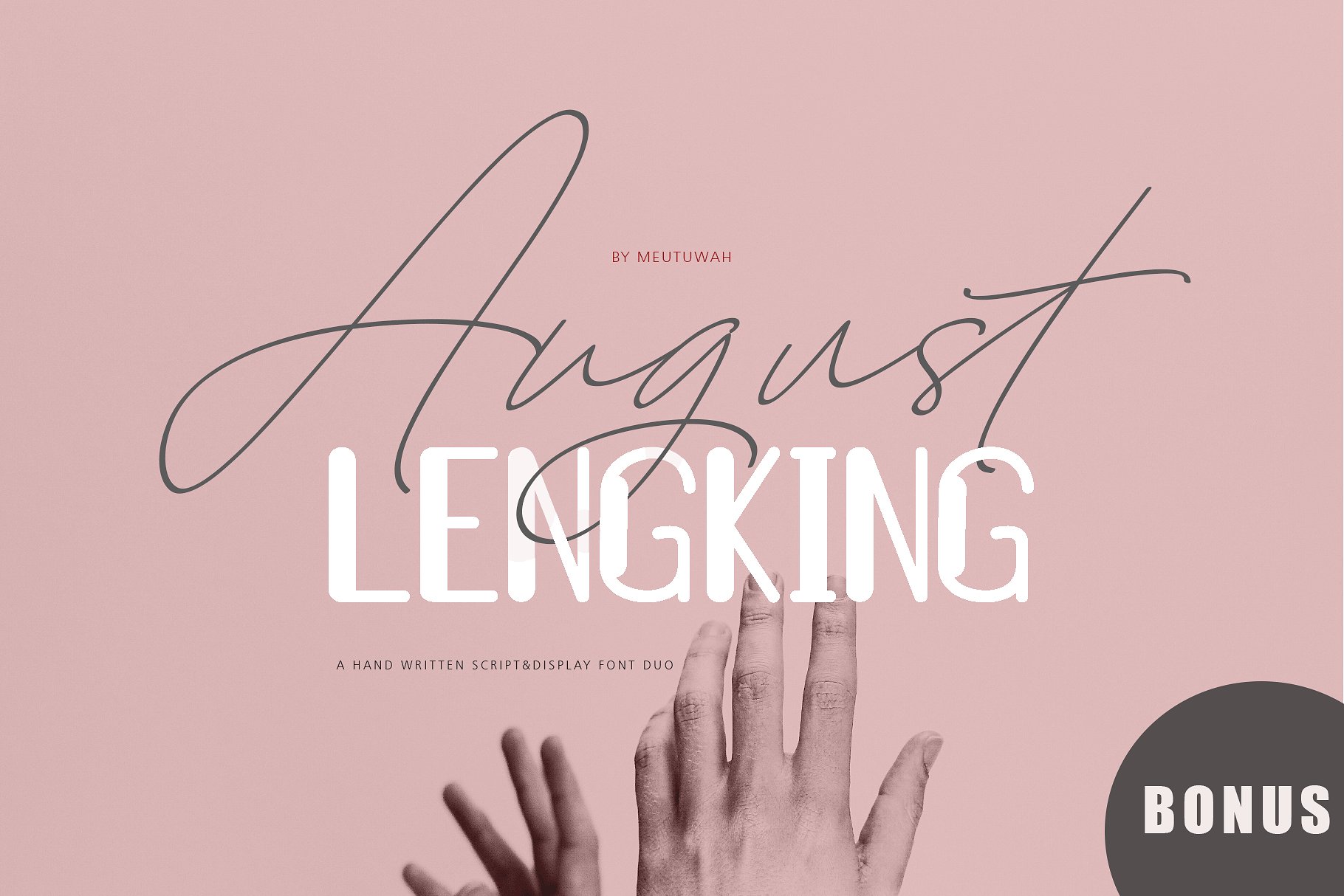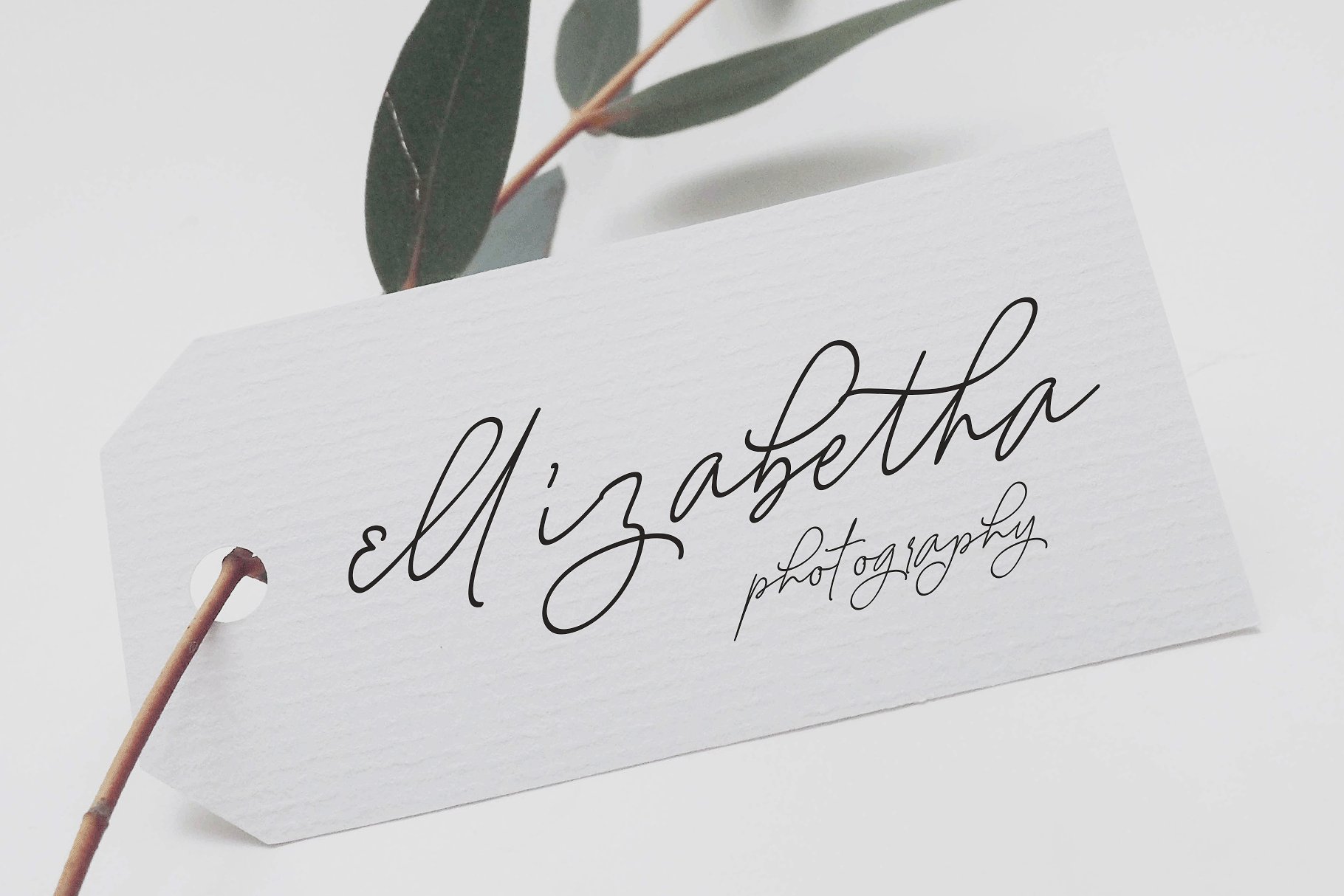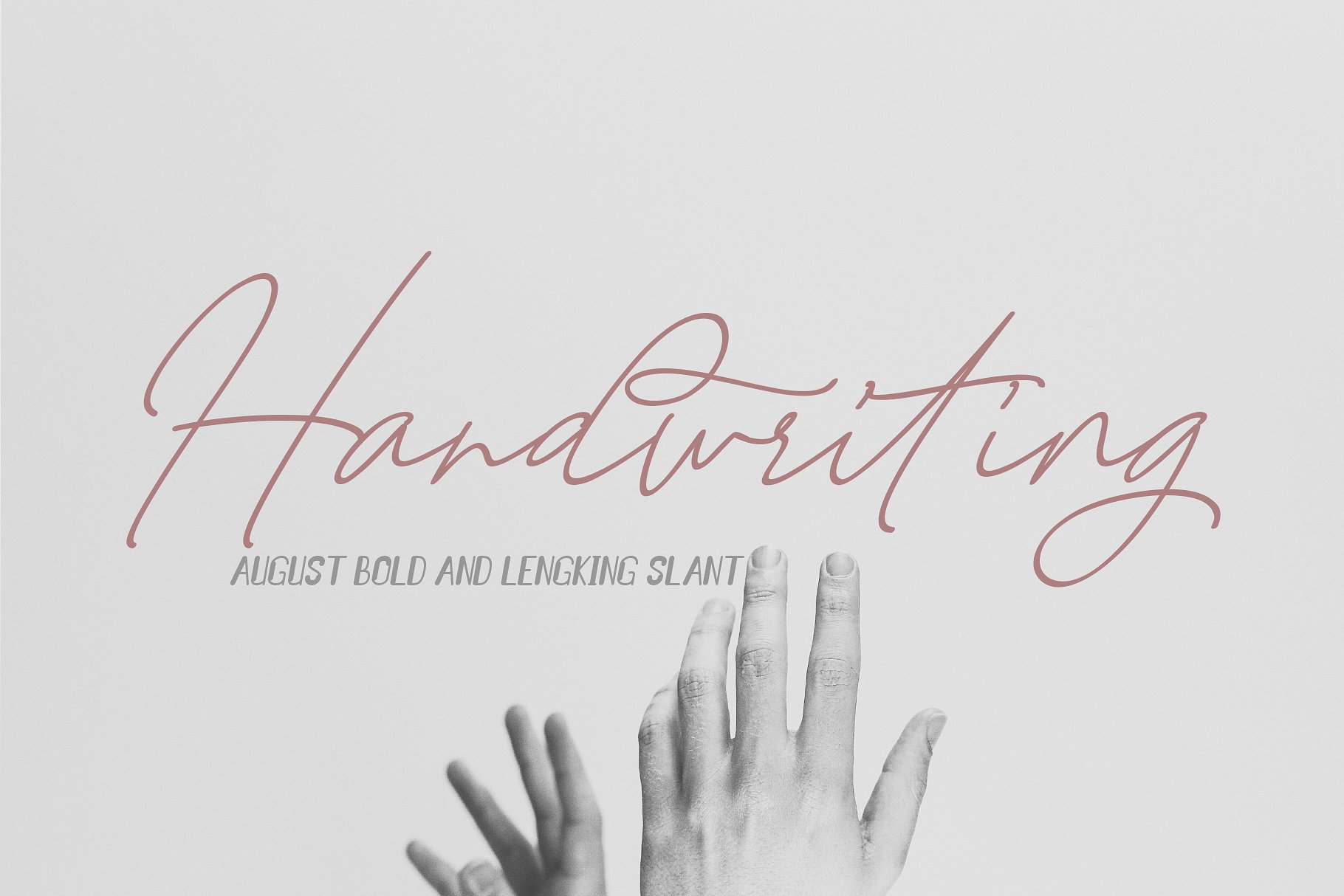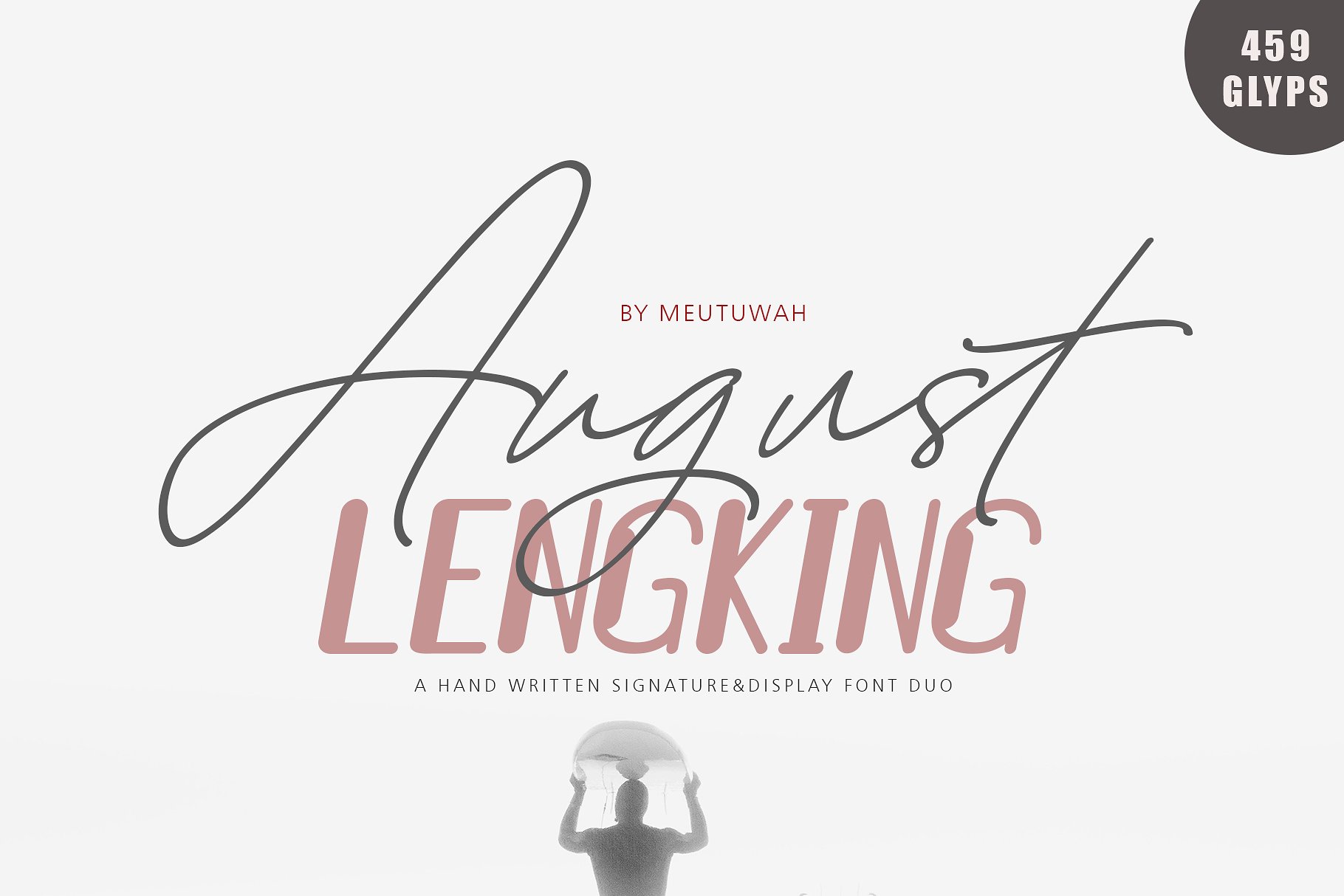
August Script Font
Hello friend! A hand written signature & display font duo. Introducing August Font! It is was designed and shares by Meutuwah. AugustScript, August Script Bold & LENGKING, LENGKING SLANT 4 Font Style. August Bold & LENGKING SLANT, is another lovely modern script, signature and display font, which is combining the style of classic calligraphy with an modern style. combines from copperplate to contemporary typeface with a dancing baseline, modern and elegant touch. including alternates, and ligatures.